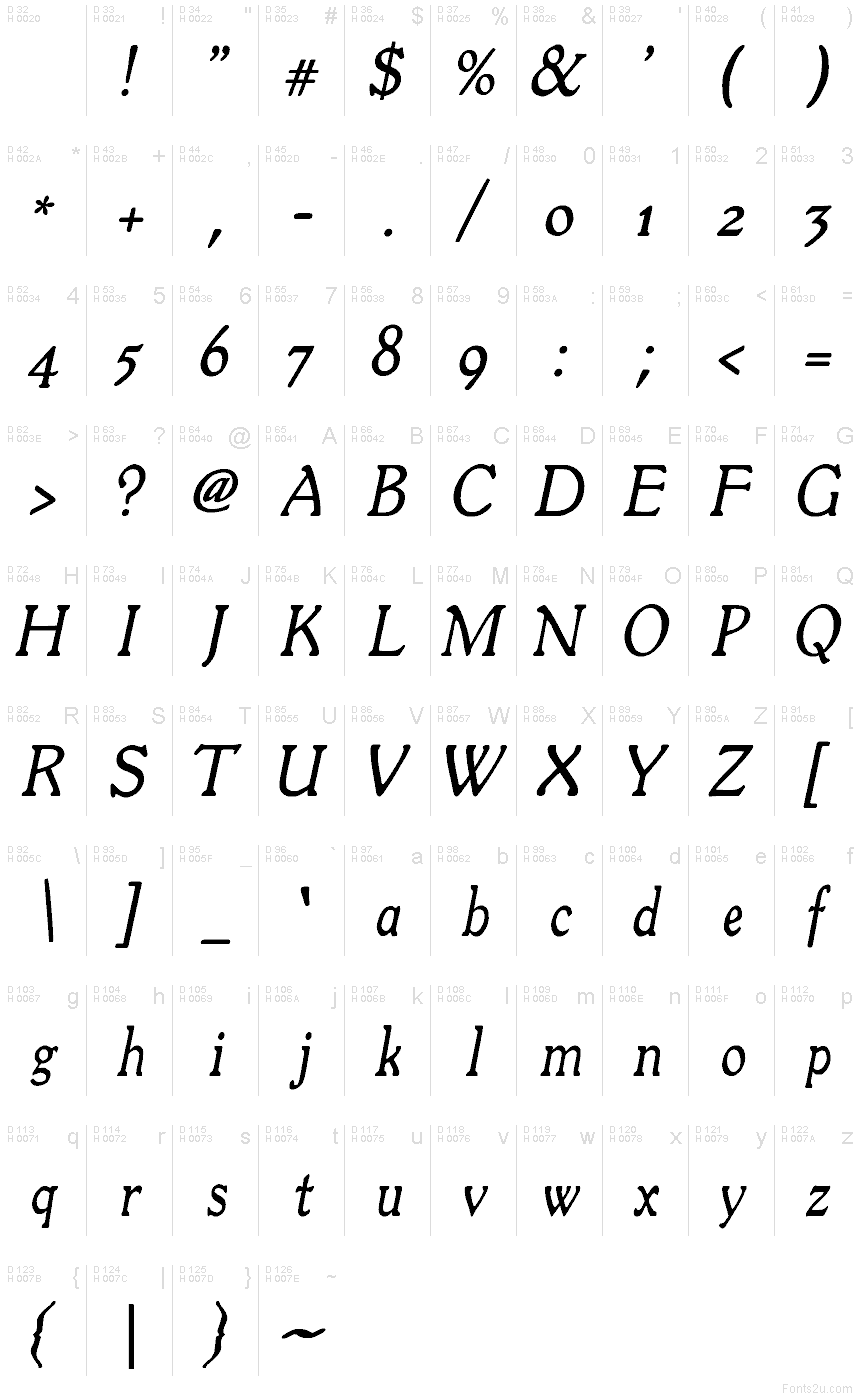
LDR Studia Lite Italic
LDR Studia Lite Italic font by Luigi Della Rosa is a free italic serif typeface. When you need emphasis that doesn’t shout, it delivers—gentle slant, crisp wedges, and airy spacing give lines a steady, bookish flow. The strokes feel lightly inky rather than stiff, so callouts and captions pick up nuance without stealing the scene. Within the LDR Studia Lite family, this cut reads as refined and effortless.
Using LDR Studia Lite Italic, you can set pull quotes, figure captions, product notes, author bios, wine labels, and poetry with calm precision. Its consistent rhythm keeps small sizes tidy, while the lively tilt adds just enough sparkle for headings. For a balanced system, pair this free font with a clean humanist sans; keep the sans for body text and let the italic sing in accents.